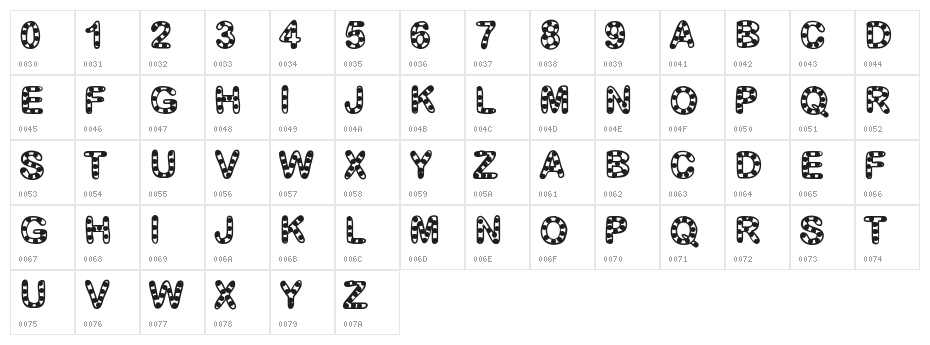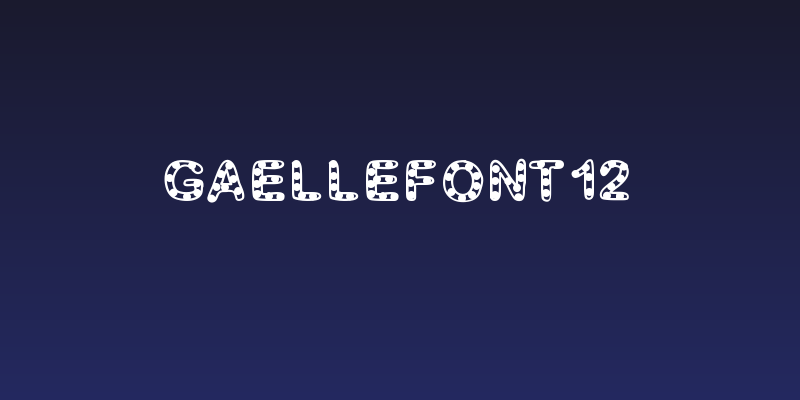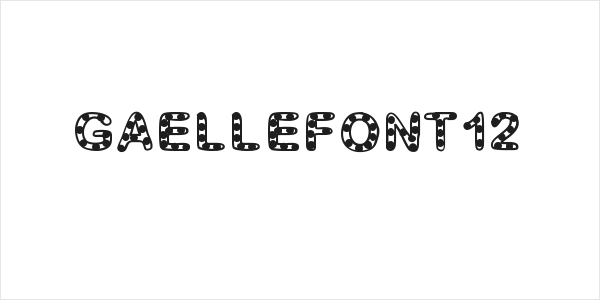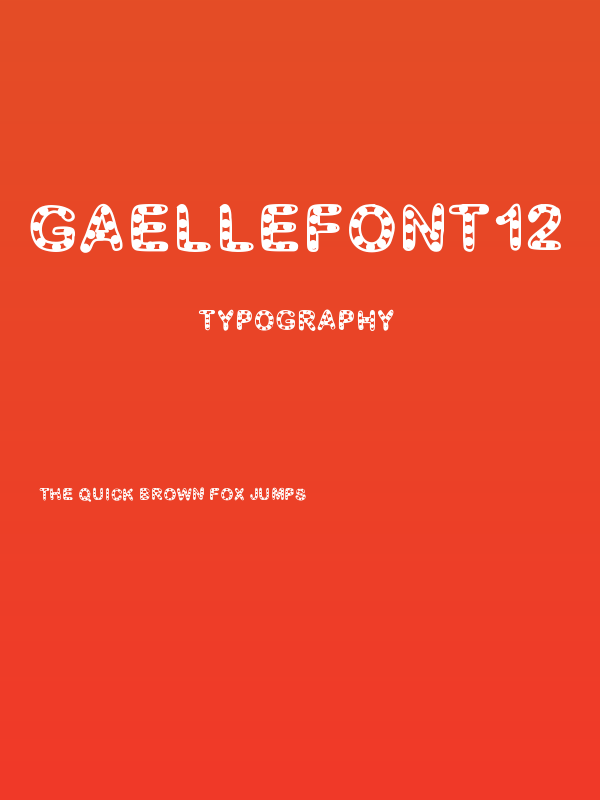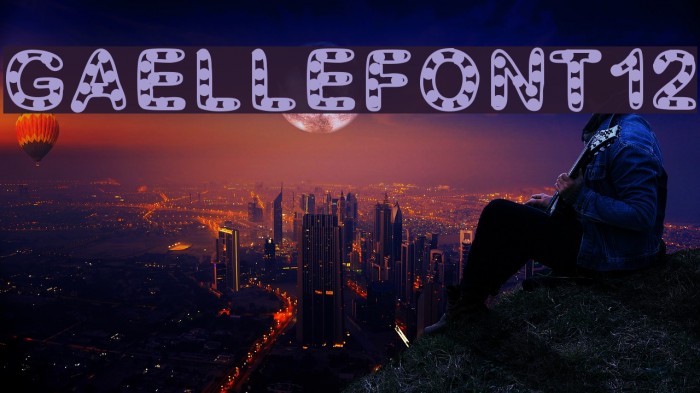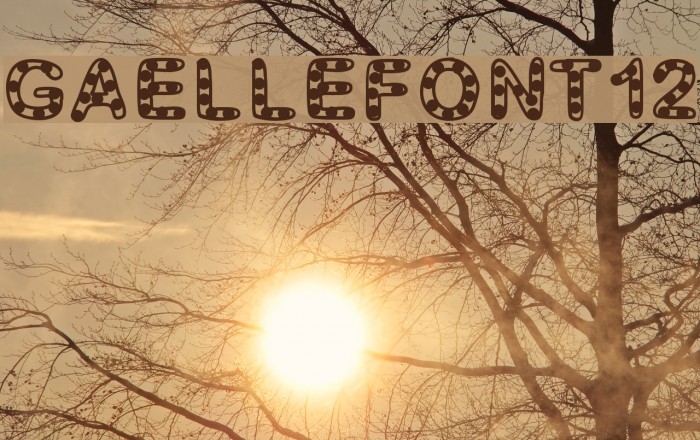
GaelleFont12 Font
GaelleFont12 Description
This font features a playful and decorative style with a unique pattern of dots and shapes inside each character, creating a lively and engaging appearance. The letters are bold and rounded, providing a sense of fun and creativity. The design is consistent across uppercase and lowercase letters, as well as numbers, maintaining the same decorative elements throughout. This font is ideal for projects that require a whimsical and eye-catching typeface, making it suitable for children's books, party invitations, or playful branding. The characters are well-spaced, ensuring readability while maintaining their decorative charm.
| Proposed Projects | Ideal for children's books, party invitations, playful branding, and creative posters. |